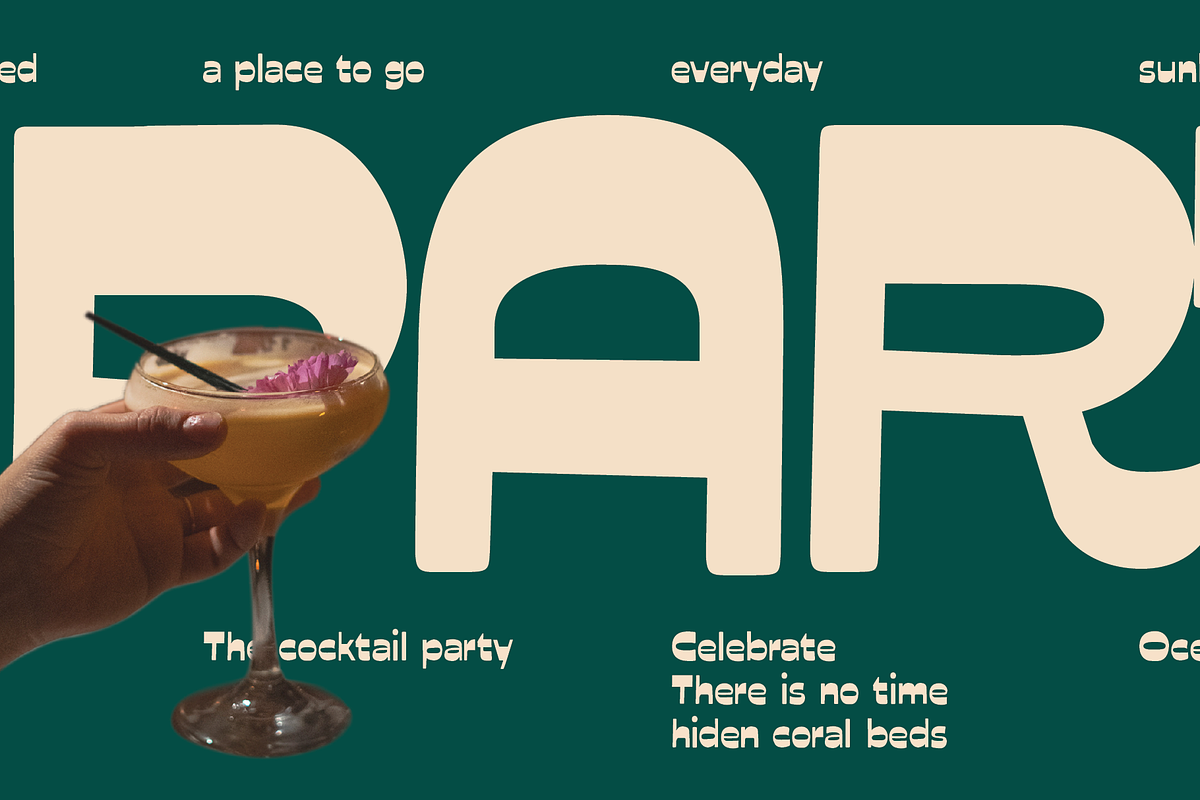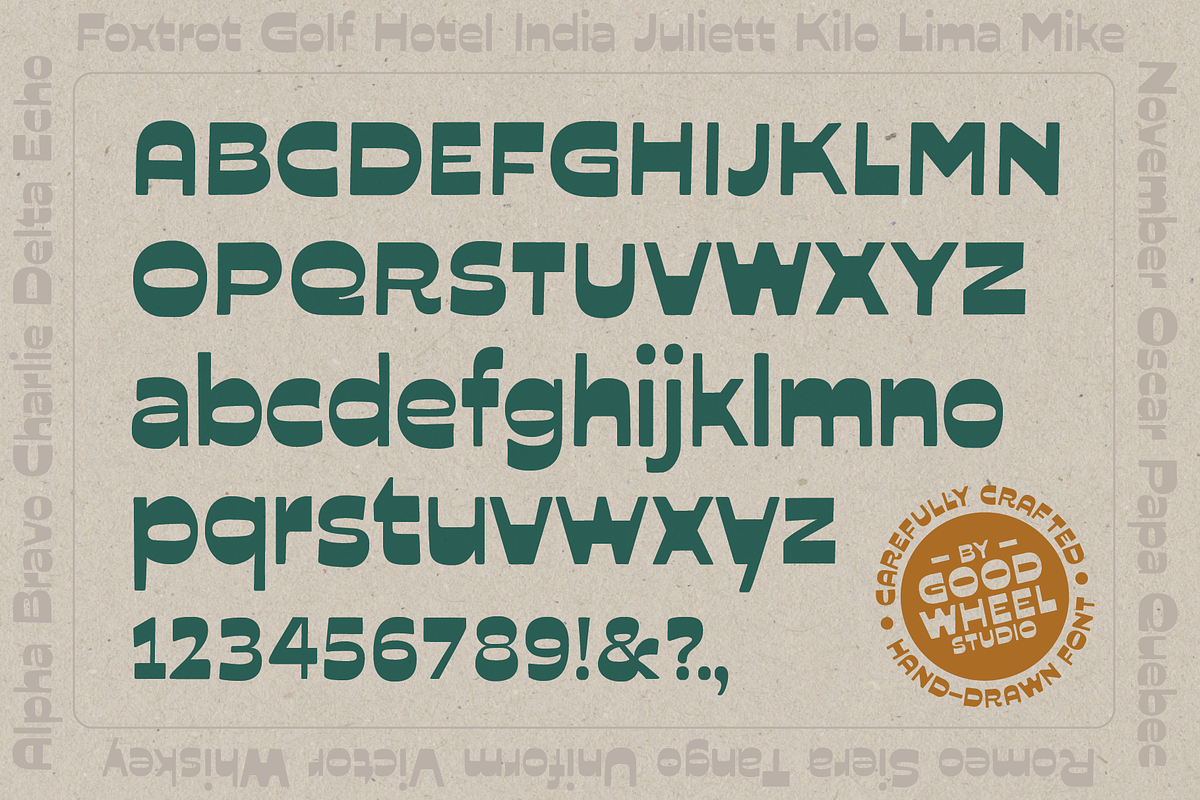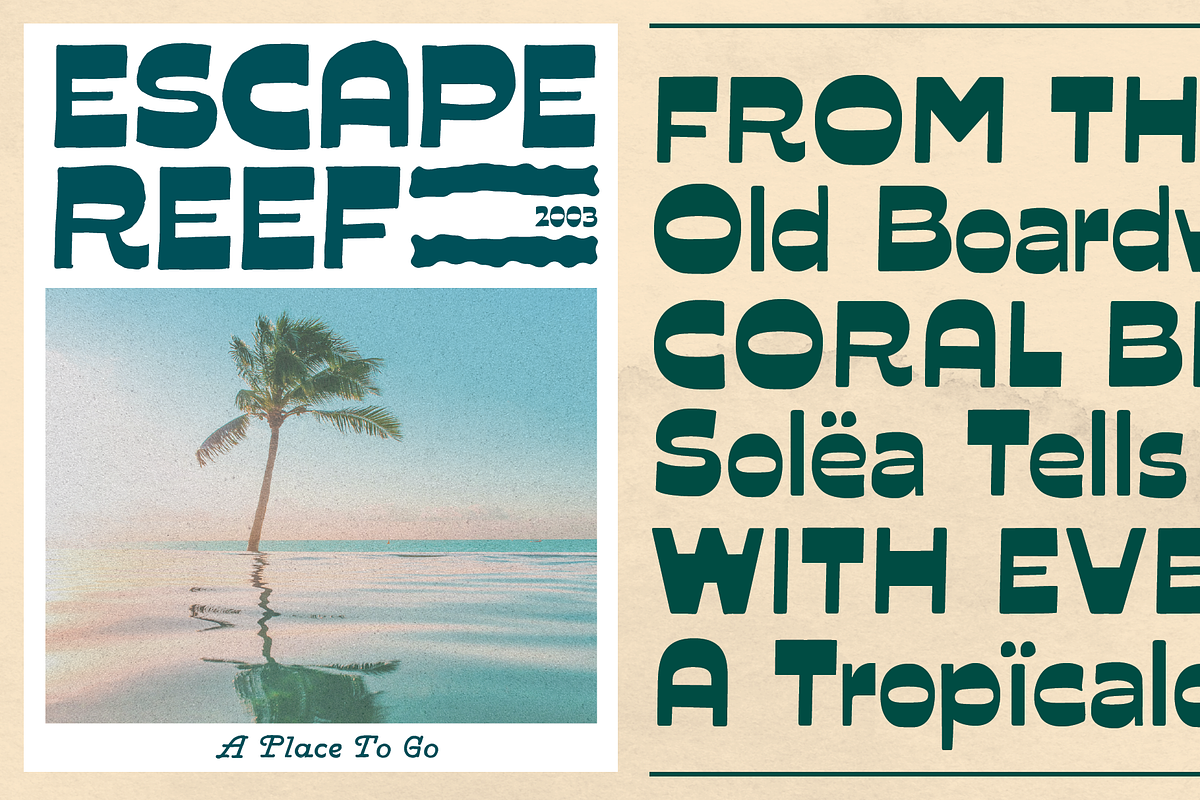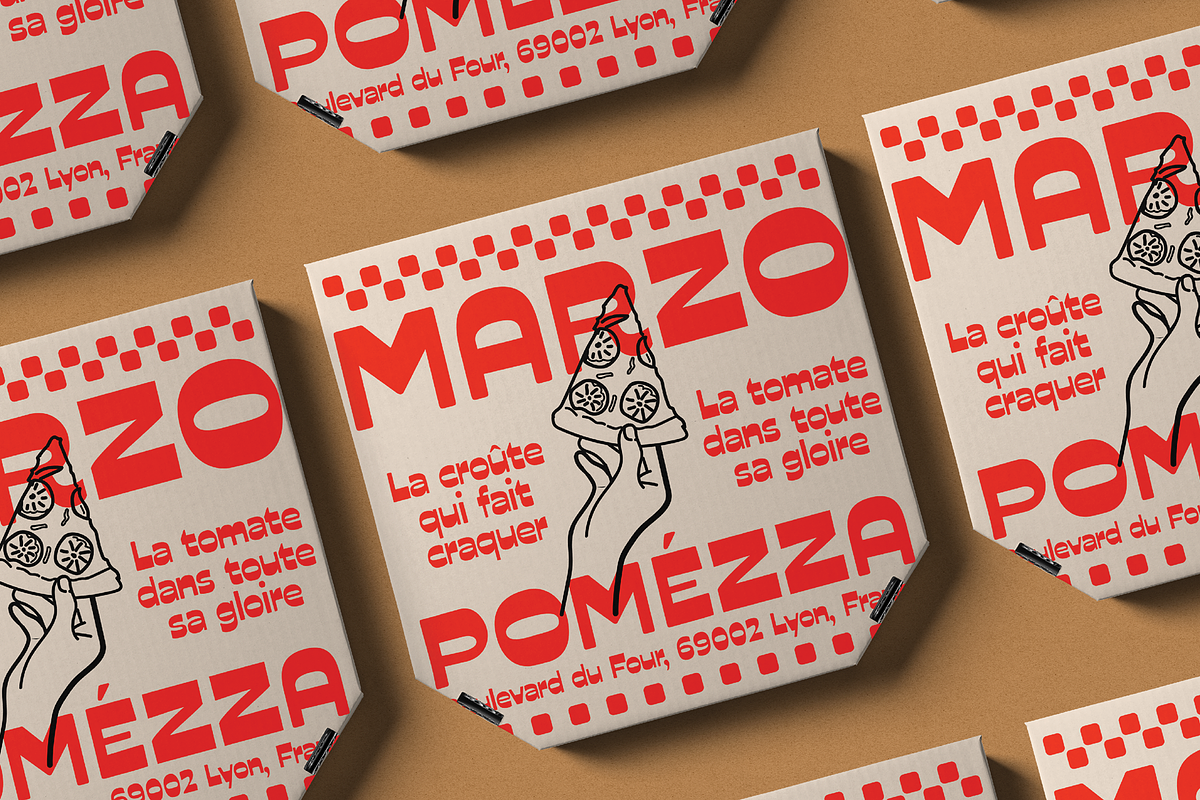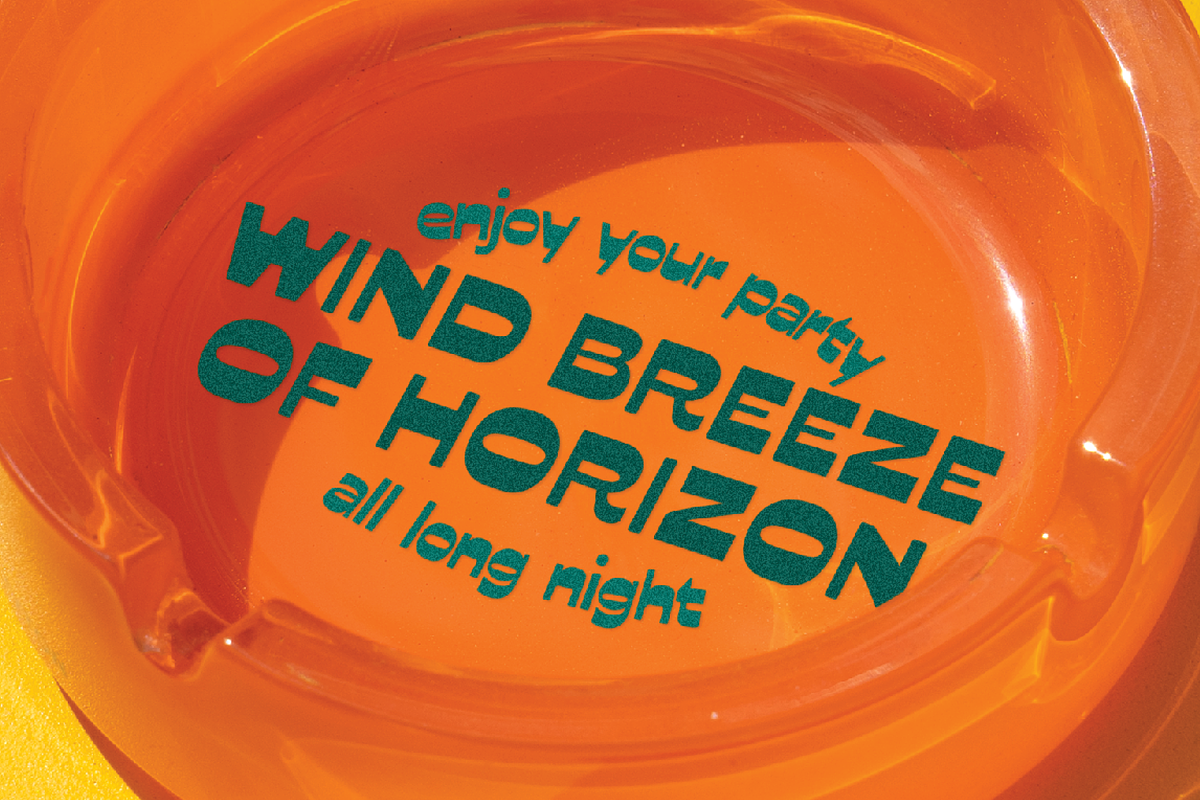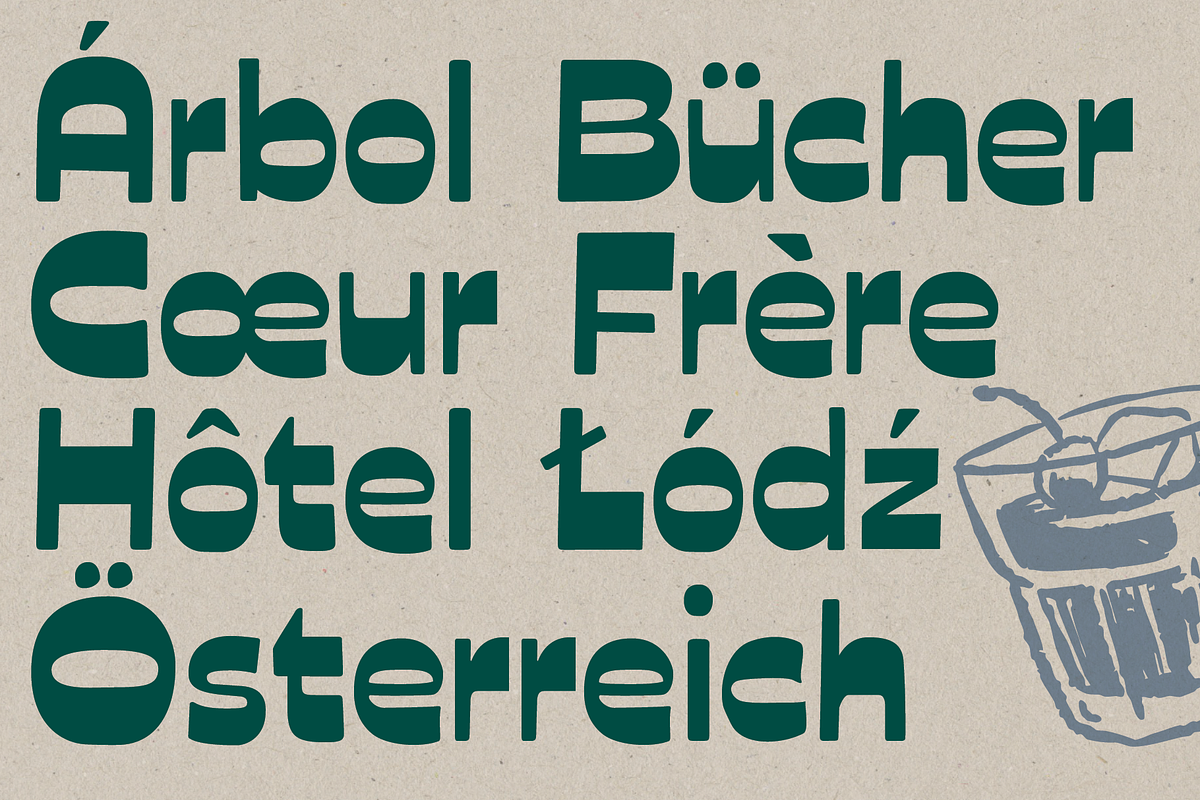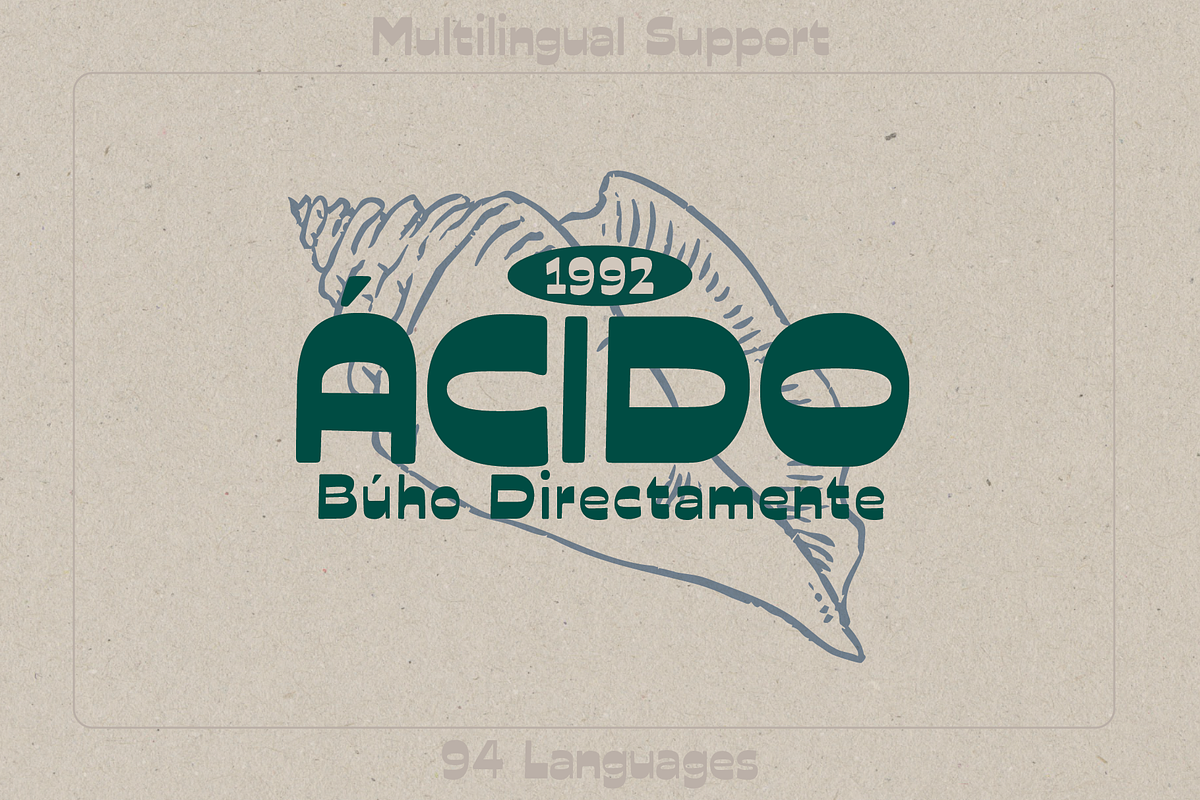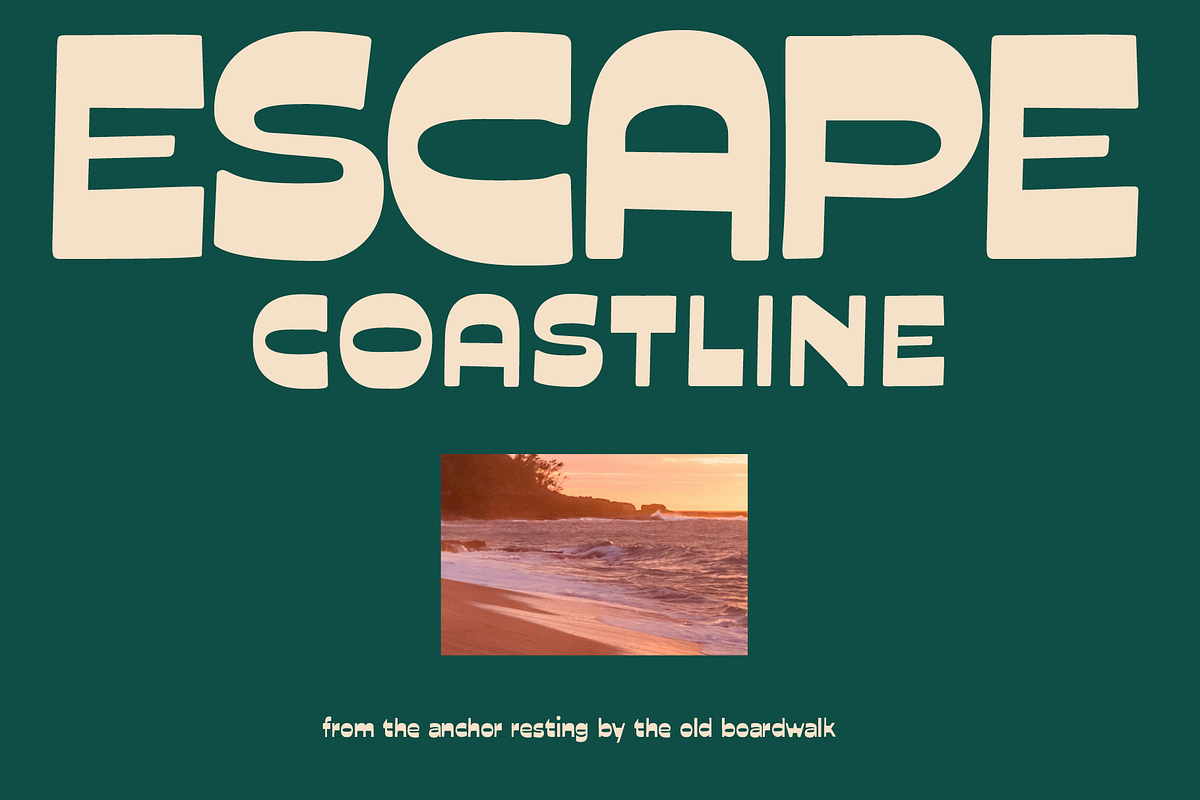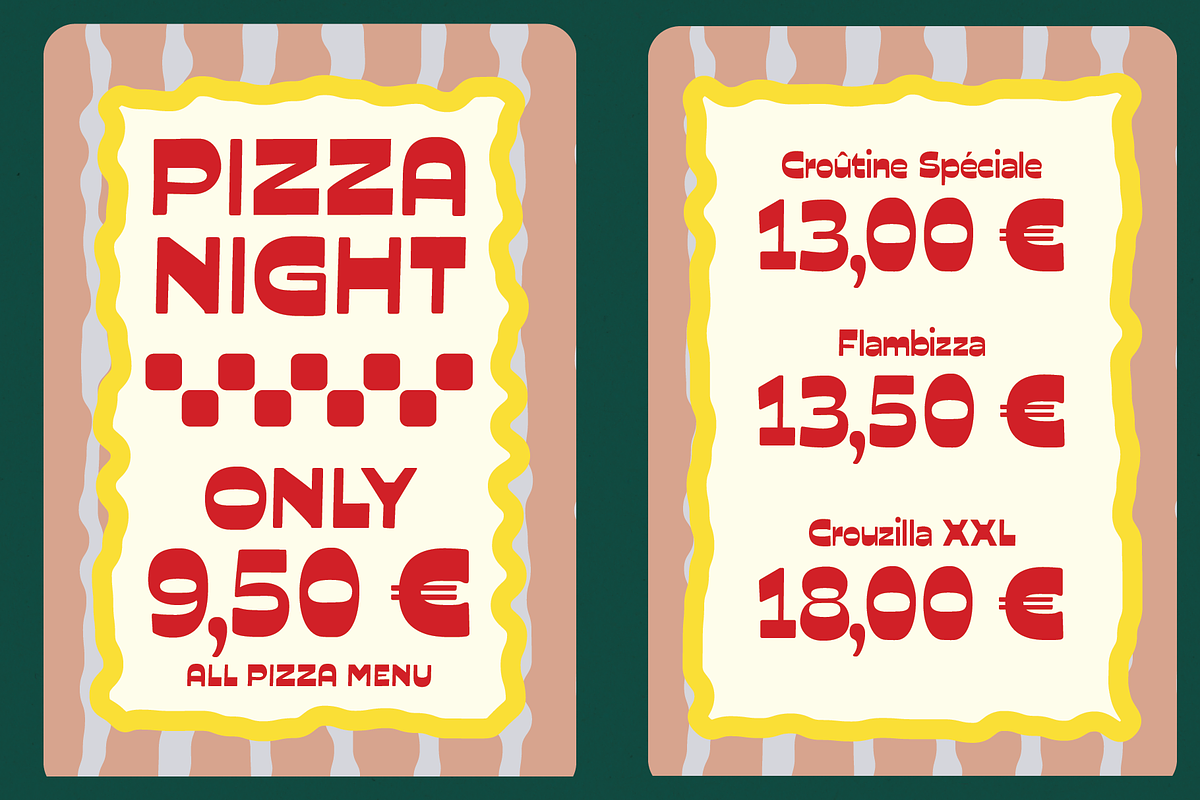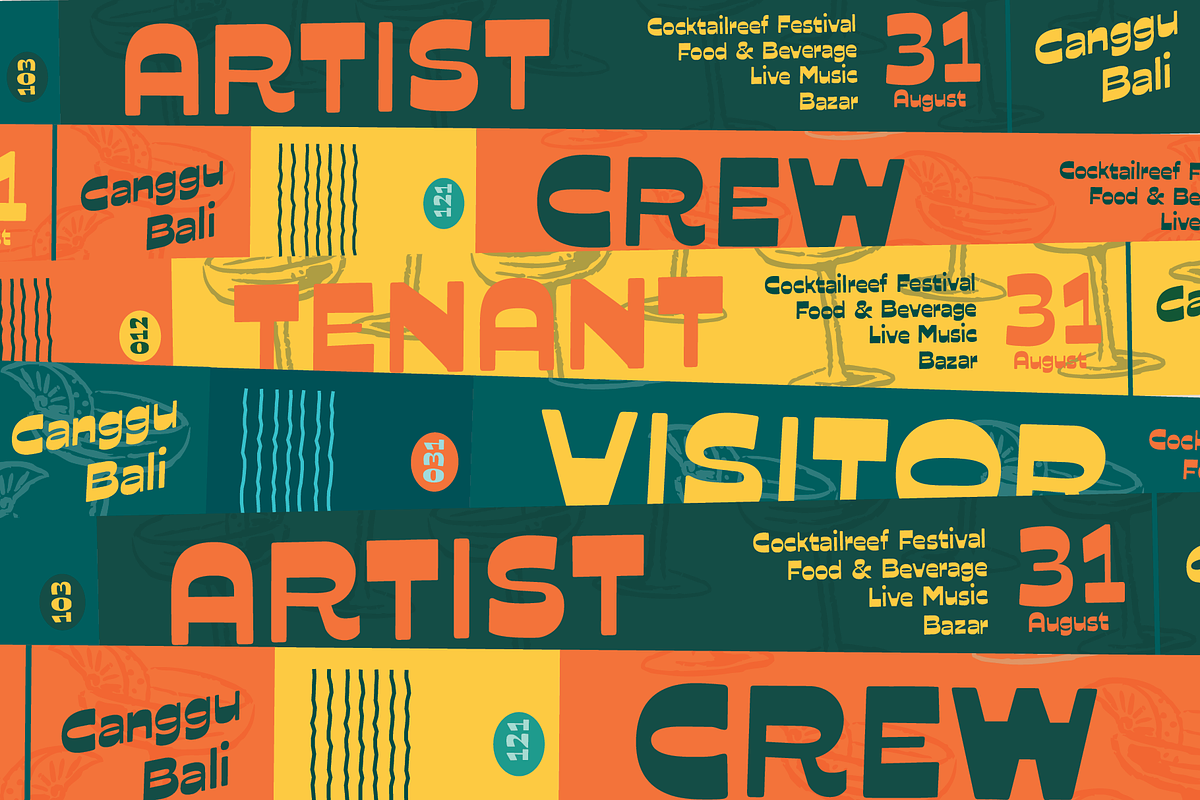
GW Buscal Hand-drawn
Buscal is a bold reverse contrast hand-drawn display typeface that brings playful energy and strong personality to your design. With its unique reverse contrast and chunky forms, this font is made to stand out—perfect for headlines, posters, covers, or branding that needs to grab attention. Its handcrafted touch adds warmth and a human feel, balancing retro charm with a modern groove. It support multi language.
From event graphics and beach club branding to retro-inspired posters and social media visuals, Buscal delivers a lively mood that makes every project unforgettable. It’s not just a typeface—it’s a vibe, a rhythm, a statement in every letter.